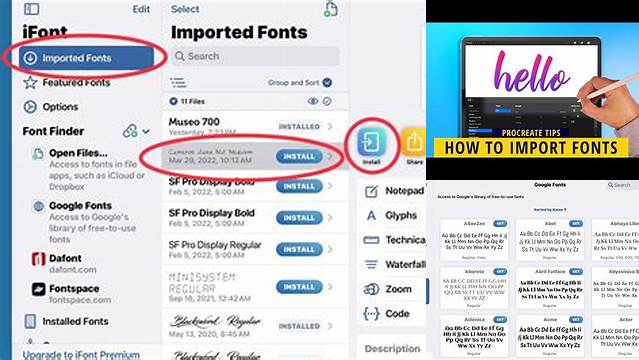
Import Fonts To Pages On IPad: A Simple Guide
Hey guys! Ever felt like the default fonts on your iPad's Pages app are just, well, a little blah? You're not alone! Sometimes a fresh font is exactly what you need to spice up your documents, whether you're crafting a killer presentation, writing a novel, or just making a simple invitation. But how do you actually get those cool new fonts onto your iPad and into Pages? Don't worry, it's way easier than you might think. This guide will walk you through everything you need to know about importing fonts to Pages on your iPad, so you can unleash your creativity and make your documents truly stand out. We'll cover the basics, explore different methods, troubleshoot common issues, and even give you some tips on finding the perfect fonts for your projects. So, grab your iPad, and let's dive in!
Importing Fonts on iPad: The Basics
Okay, let's start with the fundamentals. The ability to import fonts on your iPad isn't something that's been around forever. It's a relatively recent feature, so you'll need to make sure your iPad is running a compatible version of iPadOS. Generally, if you're using a fairly recent iPad and have kept your software updated, you should be good to go. But it's always a good idea to double-check! To import fonts, you'll need iPadOS 13 or later. Think of this as the foundation upon which all your font-importing adventures are built. Without it, you'll be stuck with the default options. Make sure your iPad is updated to the latest version of iPadOS. You can check this by going to Settings > General > Software Update. If there's an update available, download and install it. This ensures you have all the necessary features and security updates for a smooth font-importing experience. The good news is that the process is pretty streamlined, and once you've done it once, you'll be a pro! So, what exactly do you need to import fonts? Well, besides the right iPadOS version, you'll need a font file (usually in .ttf or .otf format) and a way to install it. That's where font management apps come in, which we'll discuss in the next section. Remember, having the right tools and understanding the basics are key to a successful font journey on your iPad.
Using Font Management Apps
Now, let's talk about the real magic behind importing fonts on your iPad: font management apps! These apps are your best friends when it comes to installing and organizing your fonts. Think of them as the gatekeepers to your font library. They handle the nitty-gritty details of getting those font files onto your device and making them accessible to apps like Pages. There are several font management apps available on the App Store, each with its own strengths and features. Some popular choices include iFont, AnyFont, and Font Diner. These apps generally work in a similar way: you download them from the App Store, open them up, and then import fonts files into the app. Once the fonts are in the app, you can install them onto your iPad, making them available system-wide. Choosing the right app for you often comes down to personal preference. Some apps have a more user-friendly interface, while others offer more advanced features like font previews or the ability to create font collections. It's worth trying out a few different options to see which one clicks with you. Many of these apps are free to download and use for basic functionality, with options to upgrade for additional features. This is a great way to test the waters and see if an app meets your needs before committing to a purchase. Regardless of the app you choose, the core principle remains the same: font management apps simplify the process of installing and organizing your fonts, making it a breeze to import fonts into Pages and other apps on your iPad.
Step-by-Step Guide: Importing Fonts with iFont
Alright, let's get practical! I'm going to walk you through the process of importing fonts using iFont, which is a super popular and user-friendly option. This will give you a concrete example of how these font management apps work. First things first, you'll need to download iFont from the App Store. Just search for “iFont” and look for the app with the blue icon. Once it's installed, open it up, and you'll be greeted with a clean and intuitive interface. Now, the key to importing fonts with iFont (and most font management apps) is to get the font files onto your iPad. There are a few ways to do this. One common method is to download the font files directly from a website using Safari. Many websites offer free or paid fonts for download. When you download a font file (usually a .ttf or .otf file), your iPad will likely ask you where you want to save it. Choose “iFont” as the destination. This will automatically import fonts the file into the iFont app. Another option is to use the “Files” app on your iPad. If you've already downloaded fonts to your iCloud Drive or another cloud storage service, you can use the Files app to locate the font files and then share them with iFont. Simply tap the share icon and select iFont from the list of apps. Once the font files are in iFont, you'll see them listed in the app. To install a font, simply tap on it, and iFont will guide you through the installation process. This usually involves tapping a button that says something like “Install” or “Install Profile.” You may be prompted to go to your iPad's Settings app to install a configuration profile. Don't worry, this is perfectly normal! Just follow the on-screen instructions, and the font will be installed on your iPad. And that's it! Once the font is installed, it will be available in Pages and other apps on your iPad. You can now use your newly import fonts to create stunning documents and designs.
Finding and Downloading Fonts for iPad
So, you know how to import fonts, but where do you find them? The internet is a treasure trove of fonts, both free and paid. You can find fonts for every style and purpose, from elegant script fonts to bold, modern sans-serifs. But with so many options out there, it can be a little overwhelming. Let's break down some great resources for finding fonts for your iPad. One of the most popular websites for free fonts is Google Fonts. Google Fonts offers a huge library of open-source fonts that are free to use for personal and commercial projects. The fonts are well-made and come in a variety of styles. Plus, Google Fonts makes it easy to download the fonts directly to your iPad. Another fantastic resource is Font Squirrel. Font Squirrel curates a selection of high-quality, free fonts that are licensed for commercial use. This means you can use these fonts in your projects without worrying about copyright issues. If you're willing to spend a little money, you can find even more amazing fonts on websites like MyFonts and Creative Market. These websites offer a wide range of fonts from independent designers and foundries. You'll find everything from unique, hand-drawn fonts to professional-grade typefaces. When you're browsing for fonts, it's helpful to have a specific style in mind. Are you looking for a font that's elegant and formal? Or something more playful and casual? Think about the purpose of your project and the overall aesthetic you're trying to achieve. Don't be afraid to experiment and try out different fonts until you find the perfect one. Most font websites allow you to preview the font before you download it, so you can see how it looks in different sizes and contexts. Once you've found a font you love, simply download the font file (usually a .ttf or .otf file) to your iPad, and then use a font management app like iFont to install it. Remember to always check the license of a font before you use it, especially if you're using it for commercial purposes. This will ensure that you're complying with the font's usage terms. With a little exploration, you'll be able to build up a fantastic font library on your iPad and take your Pages documents to the next level.
Troubleshooting Common Font Import Issues
Okay, let's be real: sometimes things don't go exactly as planned. You might run into a snag when you try to import fonts on your iPad. But don't worry, most issues are easily fixable! Let's troubleshoot some common problems and get you back on track. One of the most frequent issues is that the font doesn't show up in Pages after you've installed it. This can be frustrating, but there are a few things you can try. First, make sure you've actually installed the font correctly. Go back to your font management app and double-check that the font is listed as “installed.” If it's not, try installing it again. Sometimes the installation process can be interrupted, and a second attempt is all it takes. Another common culprit is that Pages might not be recognizing the newly installed font right away. Try closing and reopening the Pages app. This can sometimes force the app to refresh its font list. If that doesn't work, try restarting your iPad. A simple restart can often resolve minor software glitches. If you're still having trouble, check that the font is compatible with iPadOS. Most fonts will work just fine, but occasionally you might encounter a font that's not formatted correctly for the iPad's operating system. Try downloading a different font and see if that one works. If the new font installs without a problem, then the issue is likely with the original font file. Another issue you might encounter is difficulty downloading the font files in the first place. Make sure you have a stable internet connection and that you're downloading the font from a reputable website. Sometimes, websites can have temporary issues that prevent downloads from working correctly. If you're still stuck, don't hesitate to consult the help resources for your font management app or search online for solutions. There's a good chance someone else has encountered the same problem and found a fix. Remember, a little patience and persistence can go a long way when it comes to troubleshooting technical issues.
Fonts and iPadOS Compatibility
We touched on this briefly in the troubleshooting section, but it's important enough to warrant its own discussion: font and iPadOS compatibility. While most fonts will work seamlessly with your iPad, there are some instances where you might encounter a font that just doesn't play nicely. Understanding why this happens can help you avoid frustration and choose fonts that are more likely to work without a hitch. The most common reason for compatibility issues is that the font file might not be formatted correctly for iPadOS. Font files come in different formats, the most common being .ttf (TrueType Font) and .otf (OpenType Font). Both of these formats are generally well-supported on iPadOS, but sometimes a font file might be corrupted or have other issues that prevent it from installing correctly. Another factor to consider is the font's encoding. Encoding refers to the way the font's characters are mapped to specific code points. If a font uses an encoding that's not fully supported by iPadOS, you might see strange characters or the font might not display at all. This is less common with modern fonts, but it can still happen, especially with older or less common fonts. It's also worth noting that some fonts might have licensing restrictions that prevent them from being used on mobile devices. This is more common with commercial fonts, where the license agreement might specify that the font can only be used on desktop computers. Before you download a font, it's always a good idea to check its license to make sure it's compatible with your intended use. So, how can you avoid compatibility issues? The best approach is to download fonts from reputable sources, like Google Fonts or Font Squirrel. These websites typically offer fonts that are well-tested and compatible with a wide range of devices and operating systems. If you do encounter a font that doesn't work, try downloading a different version of the font or searching for an alternative. With a little bit of care, you can ensure that your font library is filled with fonts that will work flawlessly on your iPad.
Best Font Styles for Pages Documents
Okay, now that you're a font-importing pro, let's talk about style! Choosing the right font can make a huge difference in the overall look and feel of your Pages documents. A well-chosen font can enhance readability, convey the right tone, and make your document visually appealing. But with so many fonts to choose from, how do you know which ones are the best for your projects? Let's explore some top font styles for Pages documents, covering a range of different uses and aesthetics. For formal documents like reports, essays, or professional letters, you'll typically want to stick with classic, easy-to-read fonts. Times New Roman is a perennial favorite, but there are other great options as well. Garamond is a more elegant serif font that can add a touch of sophistication. Helvetica is a clean and modern sans-serif font that works well for business documents. For presentations, you'll want fonts that are clear and legible, even when viewed from a distance. Arial is a solid choice for presentations, as is Calibri. These fonts are easy to read and don't distract from your content. If you want to add a little more personality, you could try a font like Open Sans or Lato. These sans-serif fonts have a slightly more modern feel than Arial and Calibri, but they're still highly readable. For creative projects like invitations, flyers, or posters, you have a lot more flexibility in terms of font choice. This is where you can really let your personality shine! Script fonts can be beautiful for invitations or announcements, but be sure to use them sparingly and make sure they're still legible. Display fonts are designed to be eye-catching and can be great for headlines or titles. When choosing fonts for creative projects, it's important to consider the overall tone and message you want to convey. A playful font might be perfect for a children's party invitation, but it wouldn't be appropriate for a formal event. No matter what type of document you're creating, it's a good idea to limit yourself to a few fonts. Using too many different fonts can make your document look cluttered and unprofessional. Stick to two or three fonts at most, and use them consistently throughout your document. With a little thought and experimentation, you can choose fonts that will make your Pages documents look amazing.
Managing Your Font Library on iPad
Now that you're building up a collection of awesome fonts on your iPad, it's important to think about how to manage your font library effectively. A well-organized font library will save you time and make it easier to find the perfect font for your projects. Think of your font library as a digital toolbox. You want to be able to quickly grab the tool you need without having to rummage through a disorganized mess. Font management apps often offer features to help you organize your fonts. For example, you might be able to create font collections or tag fonts with keywords. This allows you to group fonts together based on style, project type, or any other criteria that makes sense to you. For instance, you might create a collection of script fonts for invitations or a collection of bold fonts for headlines. This way, when you're working on a new project, you can easily browse through the relevant collection to find the right font. Another helpful tip is to give your fonts meaningful names. When you download a font, it might have a generic name like “Font1” or a cryptic name like “XYZ-Bold.” Rename the font to something that's easy to remember and reflects its style. For example, you might rename a font called “XYZ-Bold” to “Open Sans Bold.” This will make it much easier to find the font later on. It's also a good idea to periodically review your font library and remove any fonts that you don't use anymore. Over time, you might accumulate fonts that you downloaded for a specific project and then forgot about. These unused fonts can clutter up your library and make it harder to find the fonts you actually need. Taking the time to clean up your font library every now and then will keep it organized and efficient. In addition to font management apps, the Files app on your iPad can also be a useful tool for managing your fonts. You can use the Files app to create folders for your fonts and move font files between folders. This can be helpful if you want to organize your fonts by project or by font foundry. With a little effort, you can create a font library that's both comprehensive and easy to navigate.
Creating Font Pairings in Pages
One of the secrets to creating visually appealing documents is mastering the art of font pairing. Font pairing is the practice of combining two or more fonts that complement each other to create a cohesive and harmonious design. A well-chosen font pairing can elevate your Pages documents and make them look polished and professional. But how do you choose fonts that work well together? It's not just a matter of picking two fonts that you like; there's a bit of strategy involved. A good starting point is to choose fonts that have contrasting styles. For example, you might pair a serif font (like Times New Roman or Garamond) with a sans-serif font (like Arial or Helvetica). The contrast between the serif and sans-serif styles can create visual interest and make your document more dynamic. Another common approach is to pair a bold font with a lighter font. Use the bold font for headings and subheadings and the lighter font for body text. This creates a clear visual hierarchy and makes your document easier to read. When choosing fonts, it's also important to consider their x-height. The x-height is the height of the lowercase letters in a font. Fonts with similar x-heights tend to pair well together. If you pair fonts with drastically different x-heights, the result can look jarring. It's also a good idea to pay attention to the overall tone and mood of the fonts you're pairing. Some fonts are formal and elegant, while others are casual and playful. Make sure the fonts you choose are appropriate for the type of document you're creating. For example, if you're writing a formal business report, you'll want to choose fonts that convey professionalism and authority. If you're designing an invitation to a casual party, you can be a bit more adventurous with your font choices. If you're not sure where to start, there are plenty of resources online that offer font pairing suggestions. Websites like FontPair and Canva's Font Combinations tool can help you find fonts that work well together. Don't be afraid to experiment and try out different font pairings until you find combinations that you love. The more you practice, the better you'll become at choosing fonts that complement each other and make your Pages documents shine.
Exporting Pages Documents with Embedded Fonts
When you create a document in Pages using custom fonts, you want to make sure that the fonts display correctly when you share the document with others. This is where font embedding comes in. Font embedding is the process of including the font files within the document itself, so that the recipient doesn't need to have the fonts installed on their computer or device to see them correctly. While Pages on iPad doesn't offer a direct